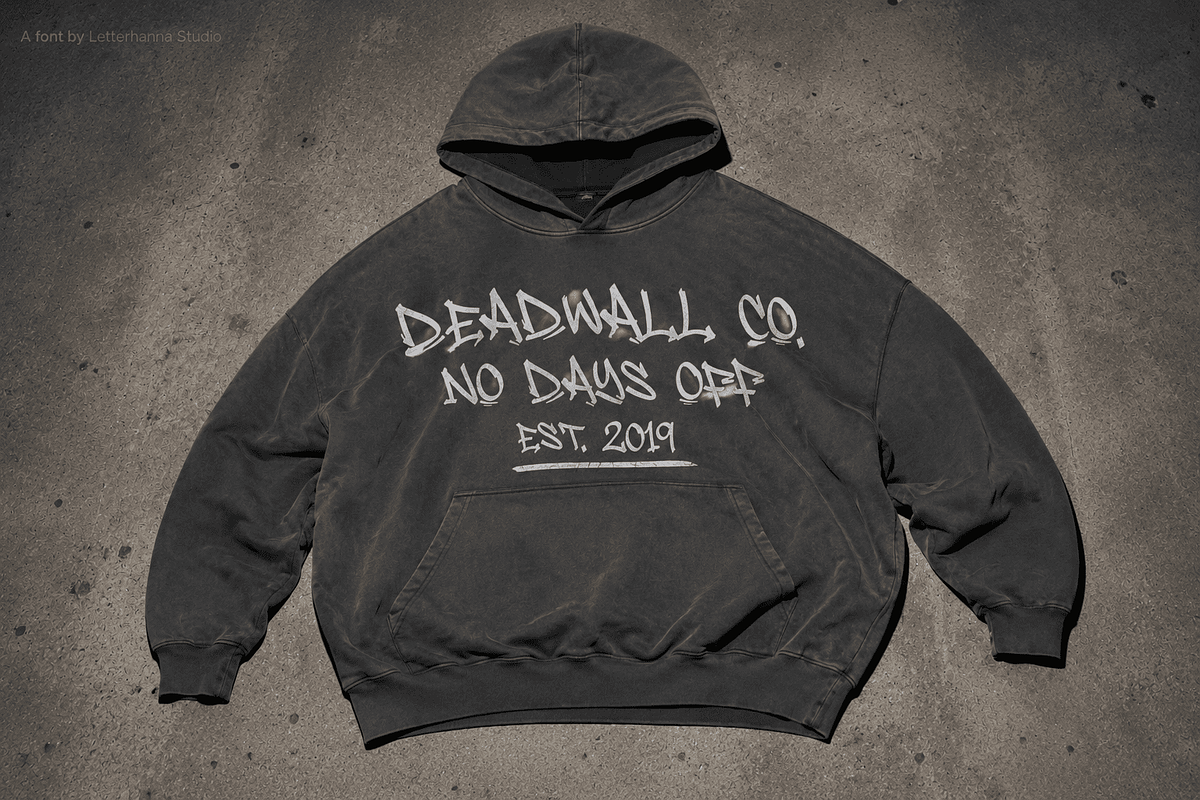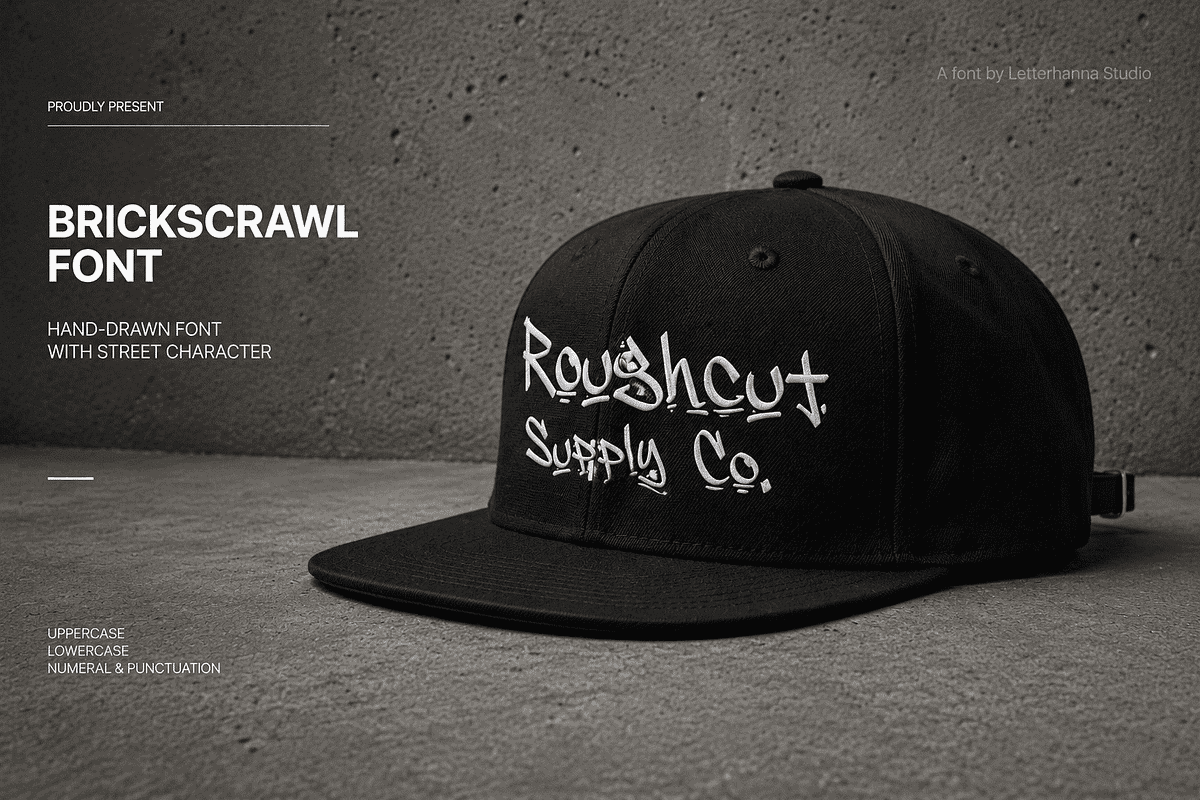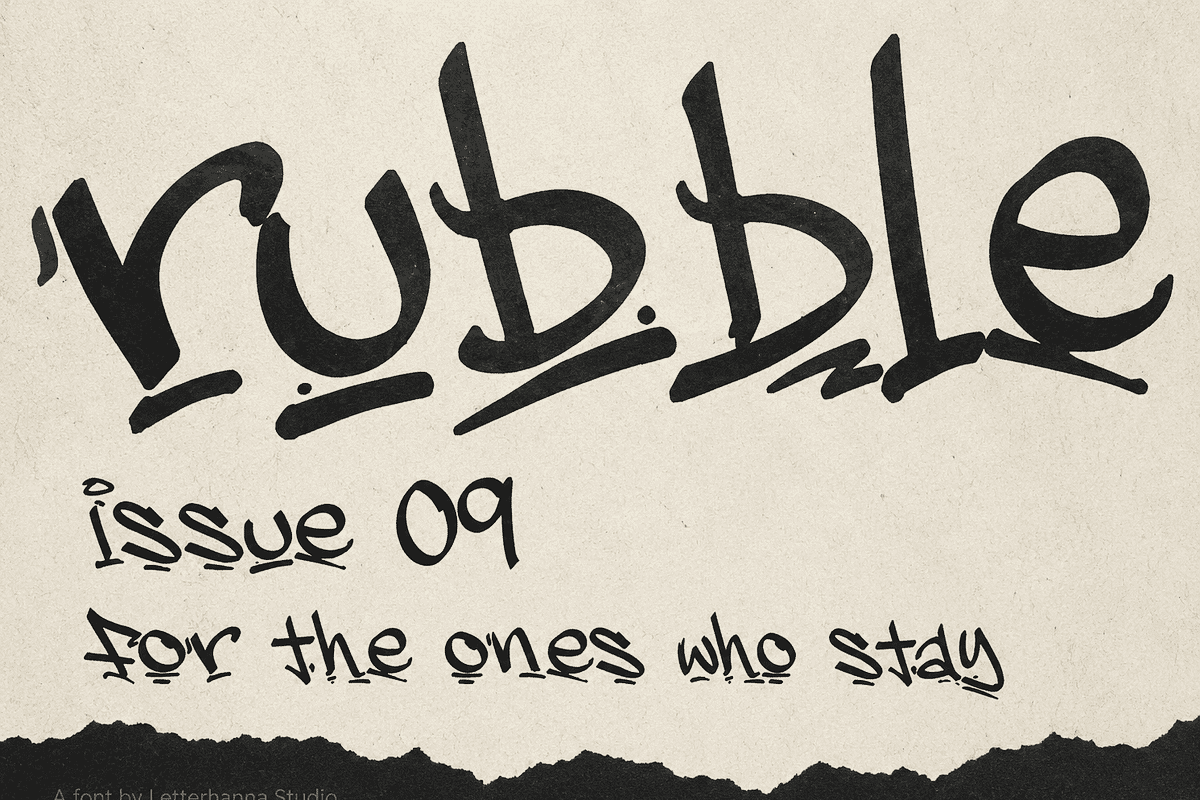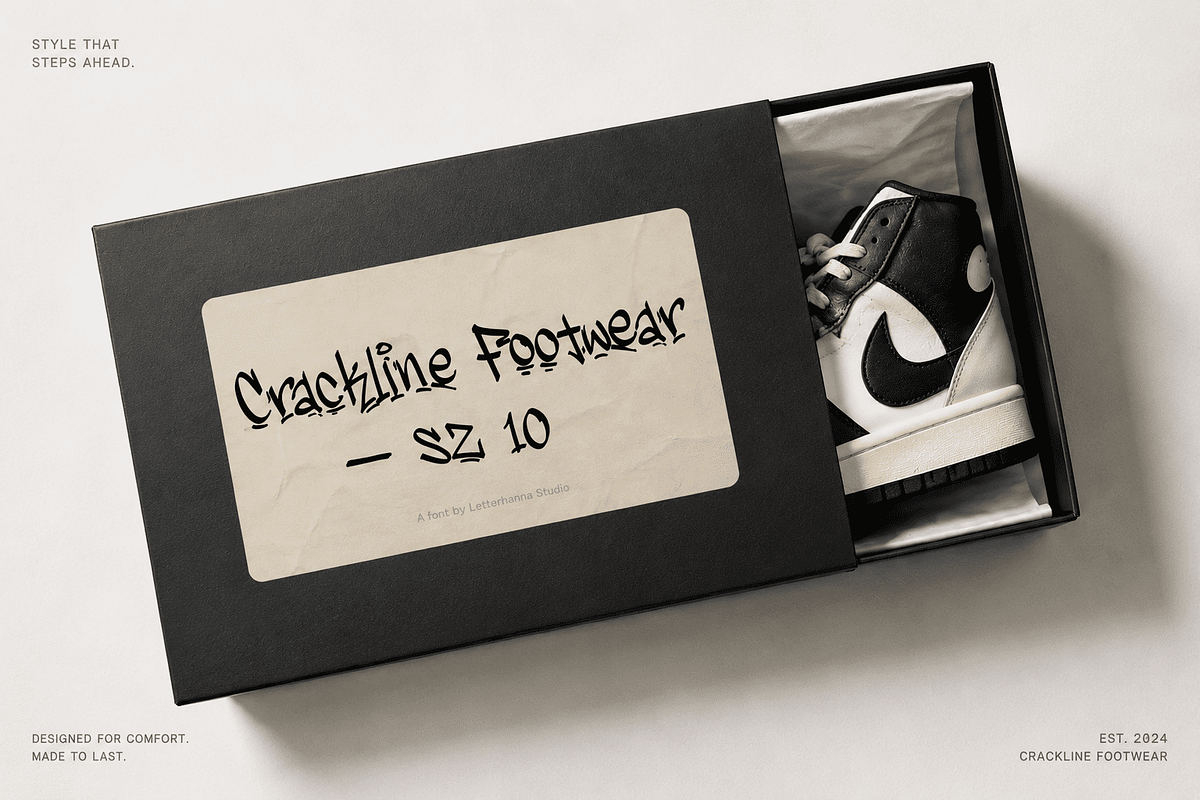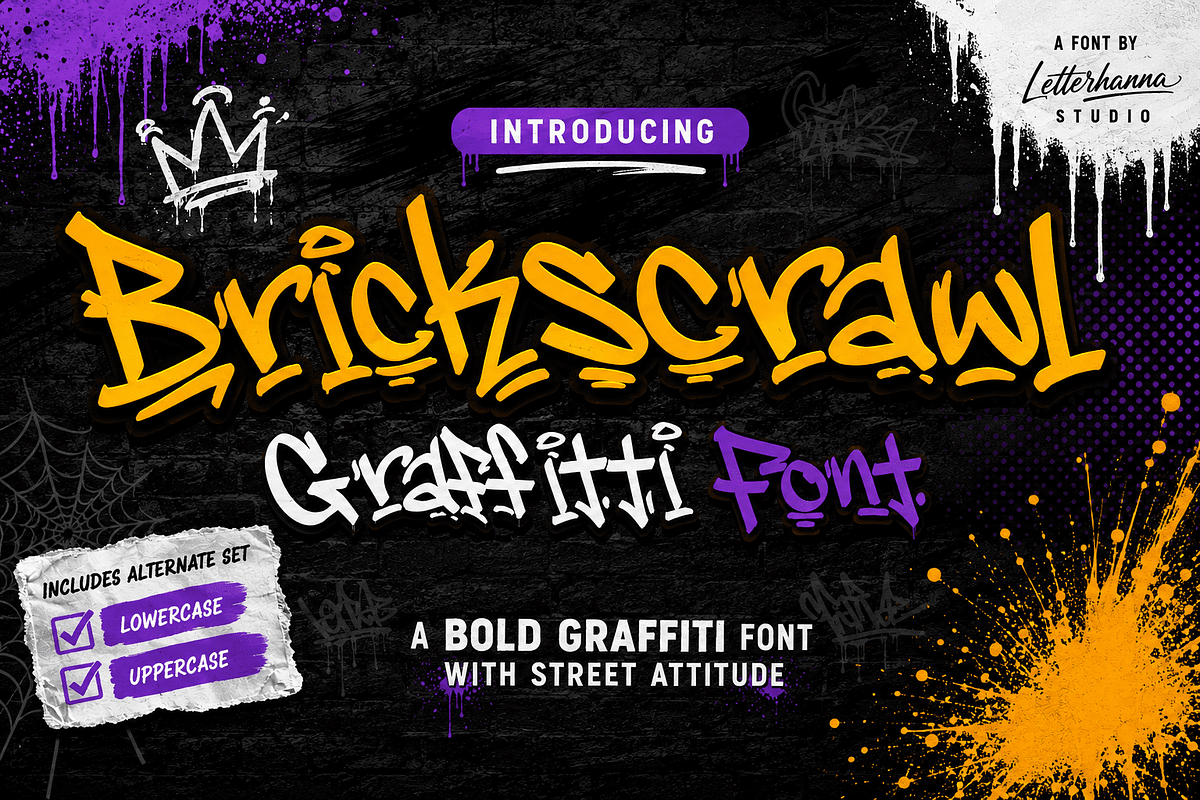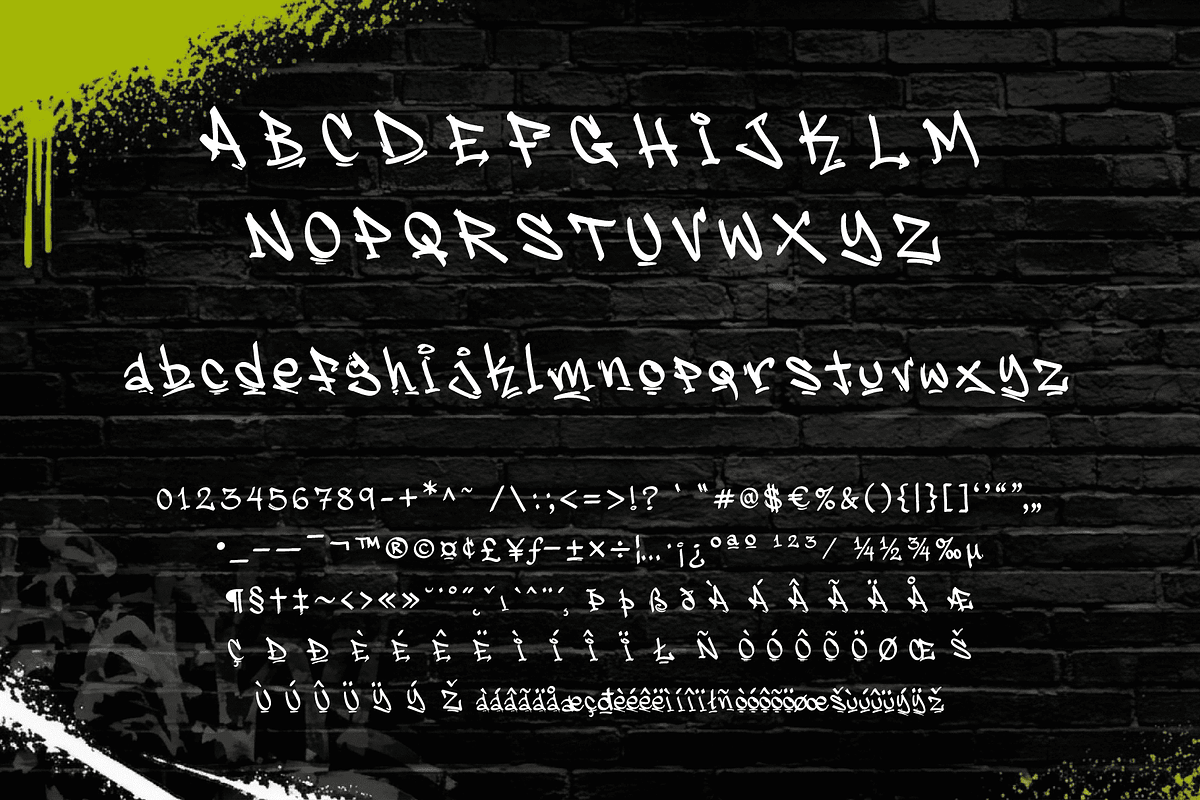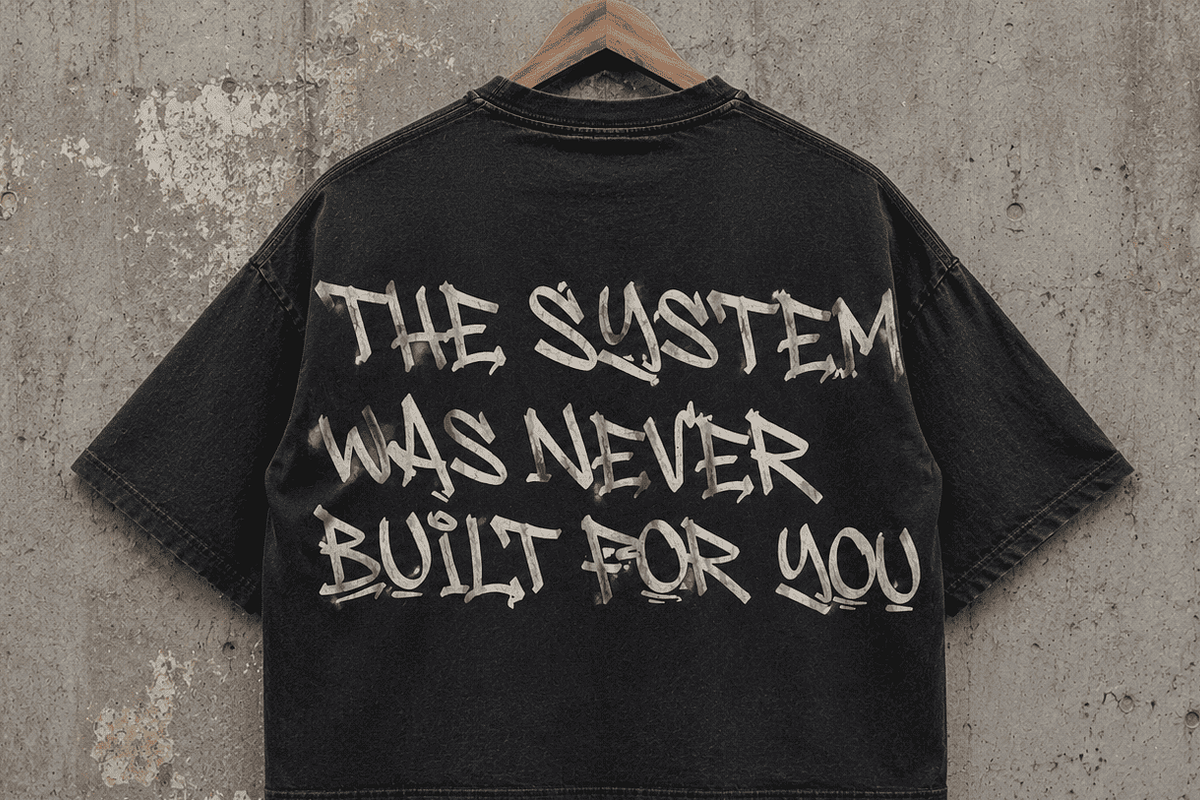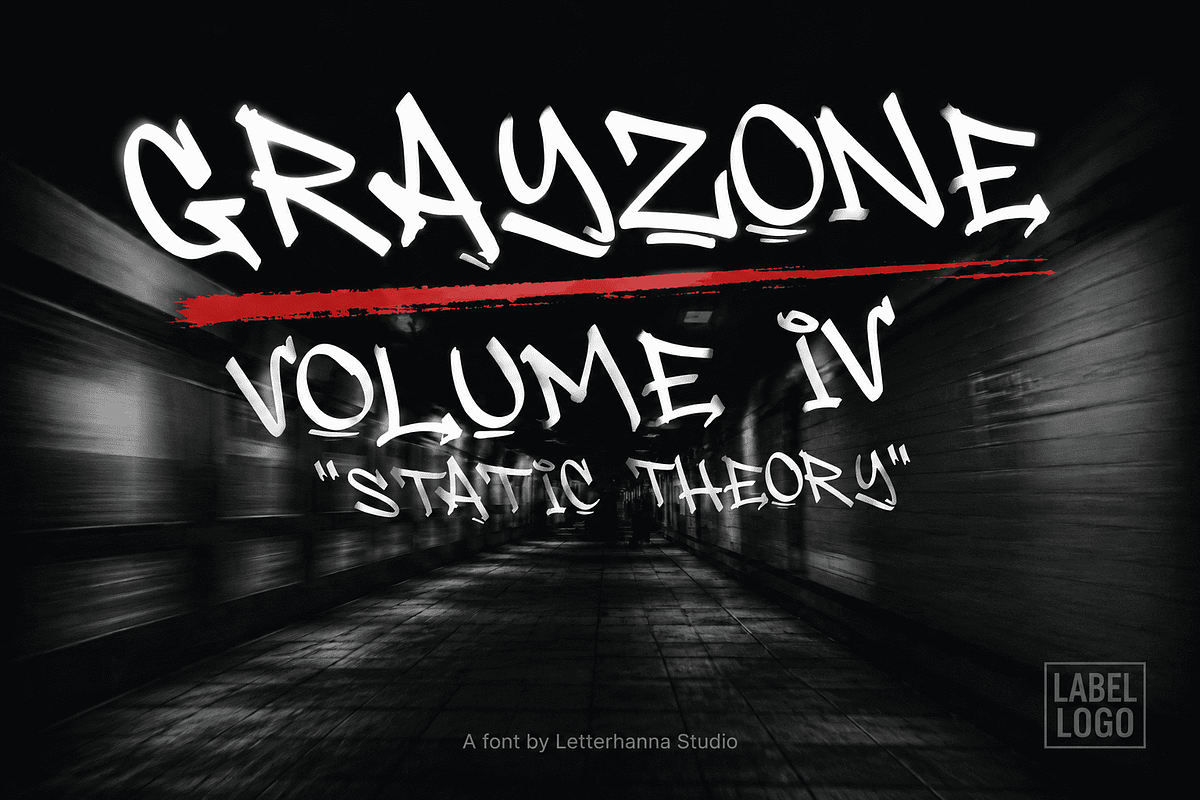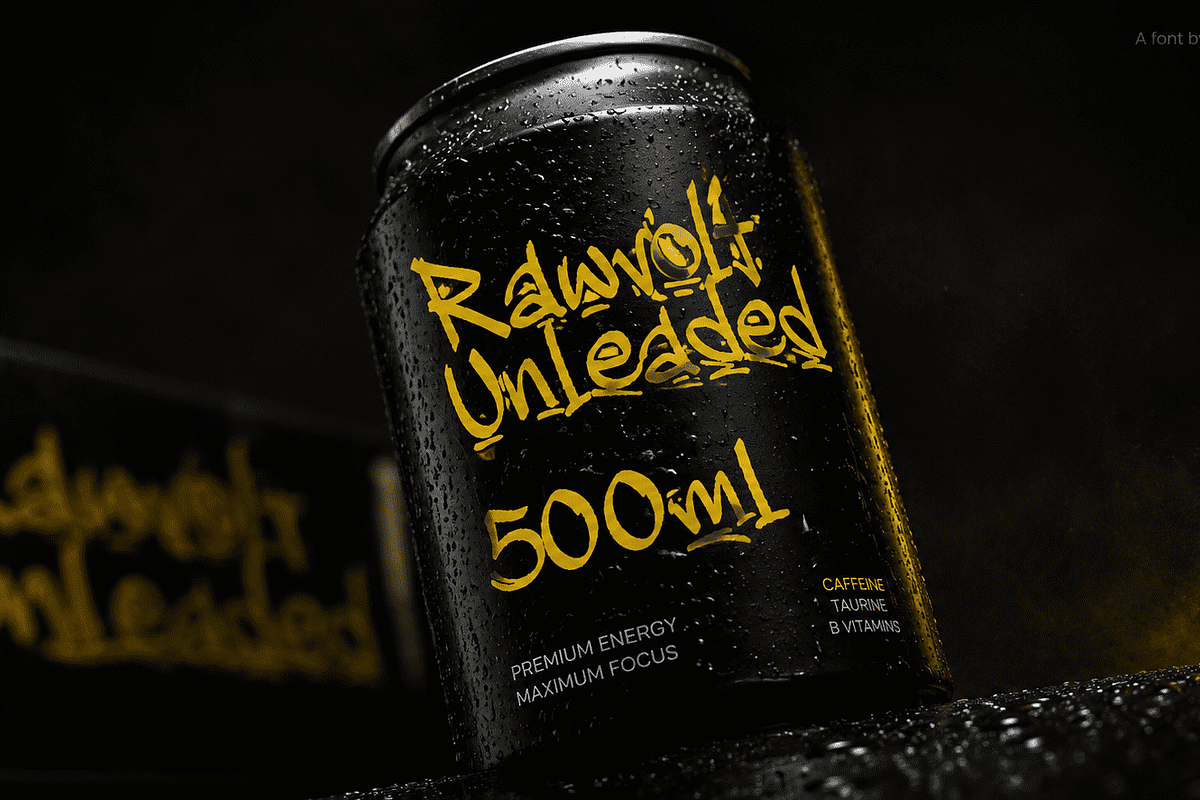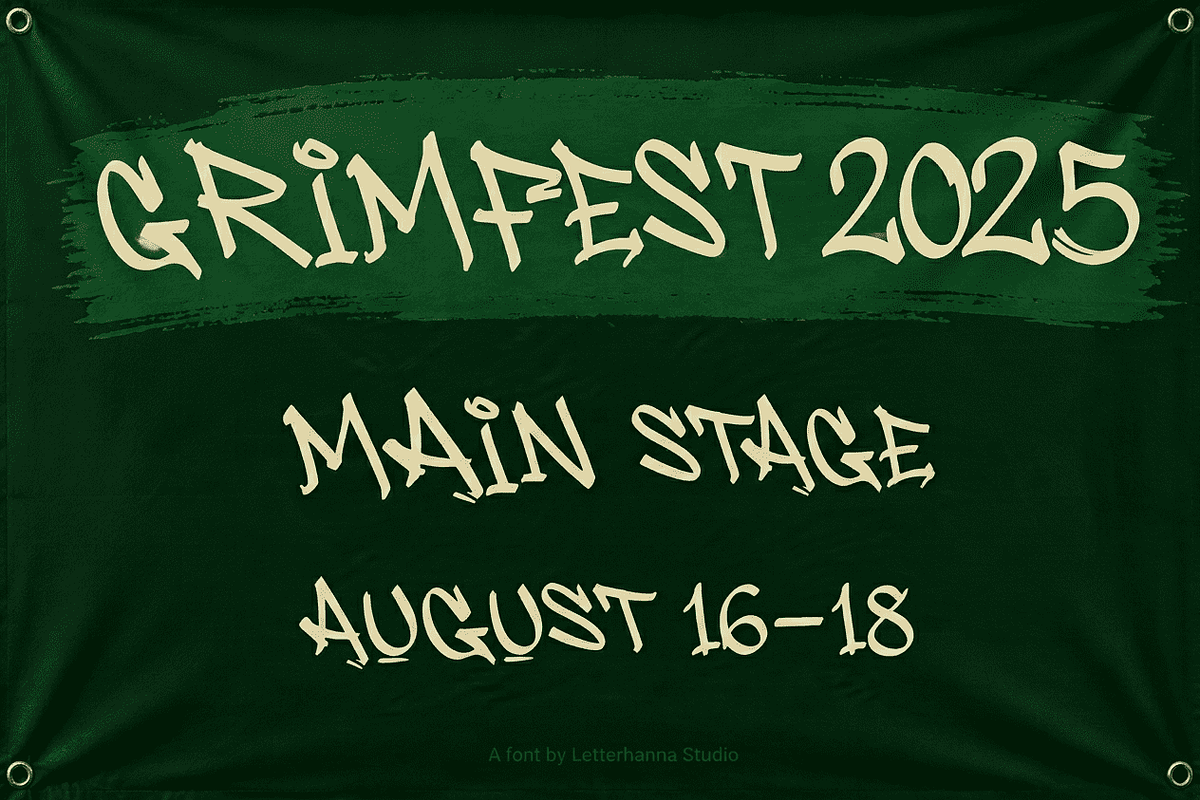
Brickscrawl Font
The walls have always talked. Now your designs can too.
Before galleries. Before brand campaigns. Before design schools handed out degrees for kerning — the streets were already speaking. In cracked alleyways and concrete underpasses, artists were building entire visual languages with nothing but a can of paint and something to say. That energy never died. It just moved.
Brickscrawl was born from that exact moment — when a marker hits a brick wall and the ink spreads with purpose. It's not a clean font. It's not supposed to be. Every character was crafted to carry weight — the kind of weight that comes from creative defiance, from expression that doesn't ask for permission.
This font is for the designers who are tired of polished. For the brand builders who want to feel something when they look at their work. For the artists, the streetwear labels, the skate brands, the music producers, the zine makers — everyone who's been looking for a typeface that actually has a pulse.
Brickscrawl sits at the intersection of handmade authenticity and display-grade impact. Use it on posters, merchandise, album artwork, packaging, social media headers, or anywhere you need letters that carry attitude. It pairs naturally with gritty textures, bold color blocking, and raw photography — but it can just as easily command attention on a clean white background, because strong letterforms don't need decoration to land.